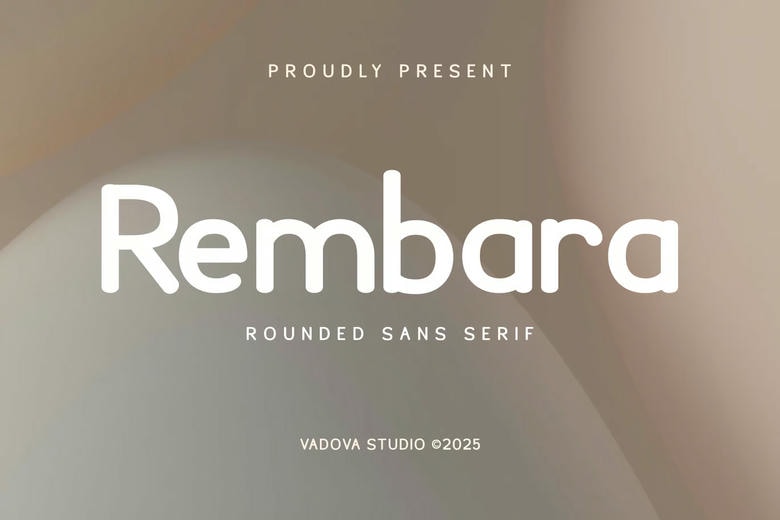
Rembara Font
Rembara is a modern and elegant rounded sans-serif typeface designed for clarity and warmth. With its smooth curves and soft edges, Rembara offers a friendly and approachable look, making it perfect for branding, UI design, packaging, and editorial projects.
Its contemporary design strikes a balance between minimalism and personality, ensuring high readability while maintaining a stylish aesthetic. Whether used for digital or print media, Rembara adds a touch of sophistication and versatility to any creative work.
Rembara Sans Serif Font